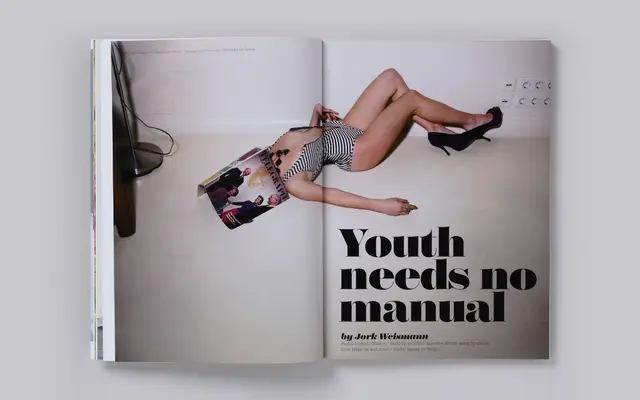
A high-contrast Didone display family in eight styles, ranging from a base cut to an extreme Monster variant designed to push counterforms and stroke contrast to their limits.
Built around the excess of Didot, the family offers two optical grades: Poster for large sizes and Poster Display for even larger settings where increased contrast reads at a distance. Each grade comes in Regular and Monster cuts, the latter described as a virtuoso exercise in counterforms, with italics throughout. Eight styles in total make the family versatile across poster, editorial and titling contexts that demand high drama.
Described explicitly as a recreation of Didot excess, with extreme contrast between thick and thin strokes characteristic of the Didone classification. The Monster cuts push contrast to virtuosic extremes for large-scale display use.